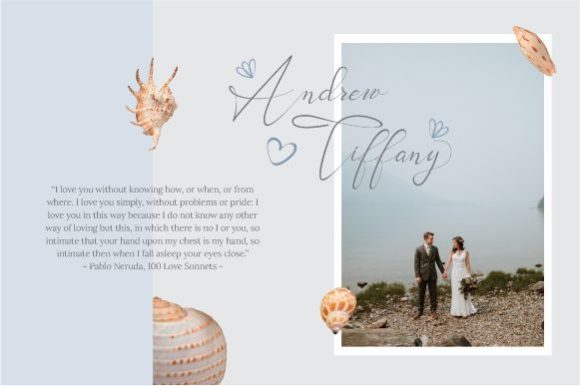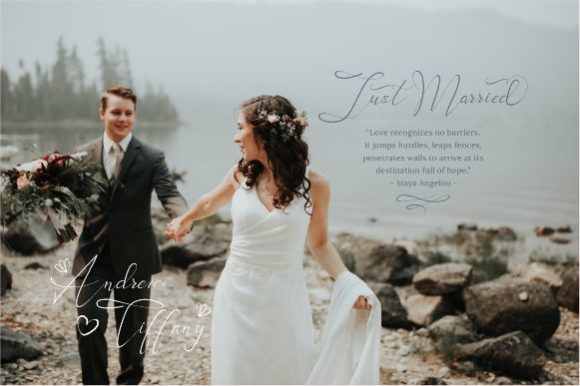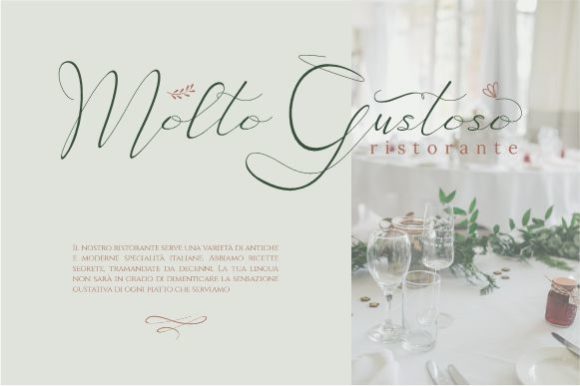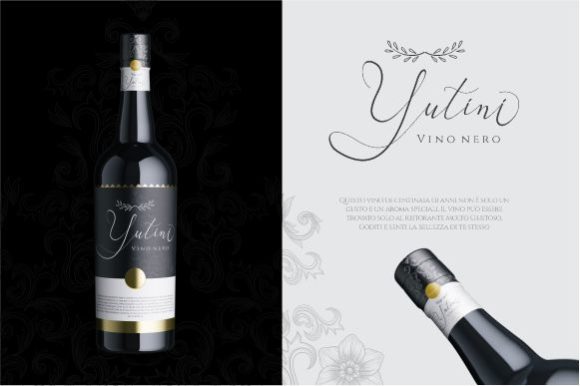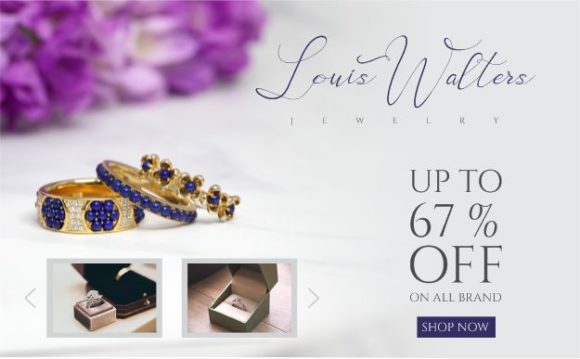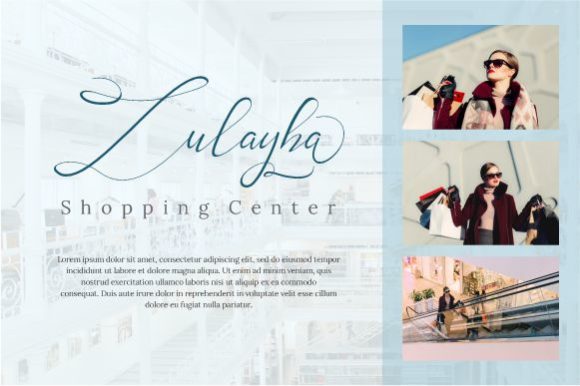
Introduction to Onette Font
As you sit in your cozy workspace, surrounded by half-finished projects and scraps of paper, you stumble upon the perfect font to give your crafts that extra oomph. The Onette Font, with its elegant handwritten style, has the power to transform any design into a masterpiece. Its high-quality design makes it a valuable resource for designers seeking to add a personal touch to their creative projects.
As a designer, you understand the importance of having the right tools at your disposal. The Onette Font is a game-changer, offering a unique and sophisticated look that’s sure to impress. So why settle for ordinary when you can have extraordinary with the Onette Font?
Key Features of Onette Font
- Includes a range of characters, including uppercase and lowercase letters, numbers, and special characters, making it a versatile design resource.
- Perfect for use in logos, branding materials, and other design elements where a modern and sleek font is required.
Honest Review: Onette Font
As a designer, I’m always on the lookout for high-quality fonts that can elevate my creative projects. I recently stumbled upon the Onette Font, and I’m excited to share my honest review with you.
- ✨ The Onette Font has a beautiful, elegant design that’s perfect for any project that needs a touch of sophistication.
- ⚠️ The font is only available in a limited number of weights and styles, which might limit its versatility.
- ⚠️ The font doesn’t have a huge character set, which might be a problem for designers working with non-English languages.
Overall, I’m really impressed with the Onette Font. It’s a great design resource for any creative project, and the free download option makes it a no-brainer. While it has some limitations, I think the font’s elegance and sophistication make it a great choice for designers who want to add a touch of class to their work.
Tips for Getting the Most Out of the Onette Font
To get the most out of the Onette Font, experiment with different font sizes, colors, and styles to create a unique look. You can also use the font in combination with other design elements to create a visually appealing design.
The Onette Font is ideal for use in creative projects such as logo design, branding, and typography-based designs. It’s also a great choice for presentations, documents, and other design materials that require a high-quality font with a transparent background.